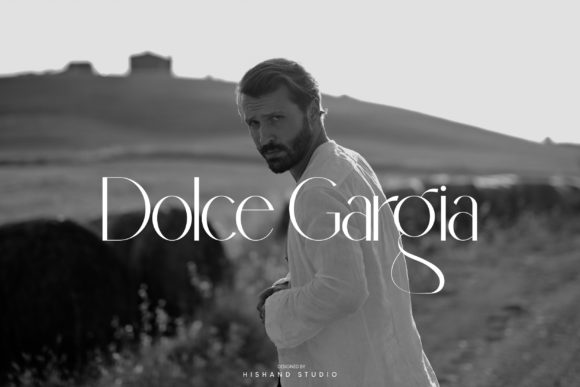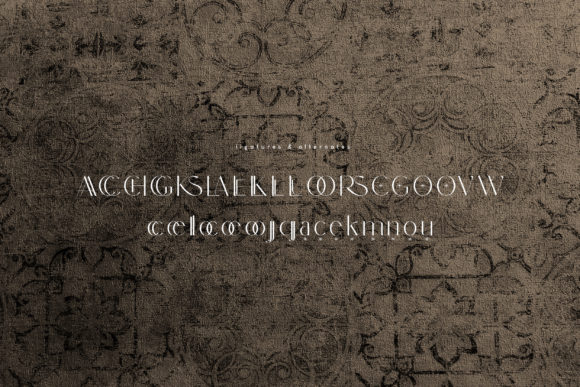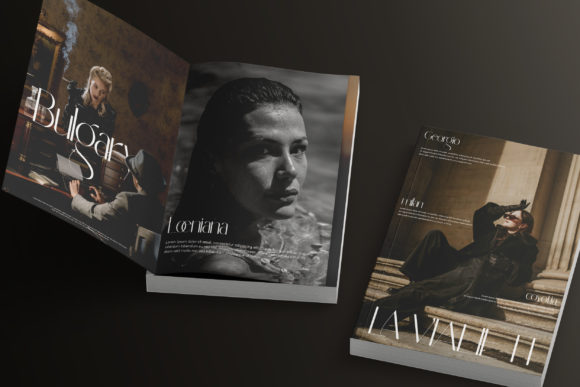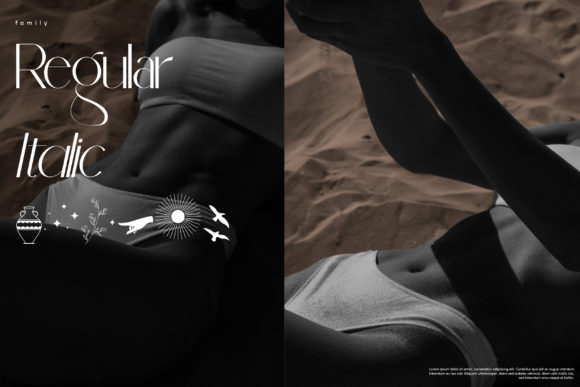
Dolce Gargia Font: Modern Aesthetic Sans Serif for Elegant Logo Design
About the Dolce Gargia Font
Meet Dolce Gargia Font, a stunning font that brings a touch of elegance and professionalism to any design. Dolce Gargia is a classic and modern sans serif font with an aesthetic look. This font is PUA encoded which means you can access all of the glyphs and swashes with ease!
Dolce Gargia’s clean lines and classic forms make it ideal for headlines, logos, and short-form text in branding materials and posters. Its aesthetic appeal also lends itself well to packaging design, particularly for high-end products. However, its less-than-optimal x-height makes it unsuitable for extended body text or UI elements where readability is paramount.
The font projects a sophisticated, modern feel. Its personality is elegant yet approachable, not overly bold or playful. To complement this, consider pairing Dolce Gargia with a contrasting serif like Garamond for a classic pairing, or a geometric sans-serif such as Futura for a more contemporary feel. A delicate script font could add a touch of luxury for specific applications.
Avoid pairing it with overly whimsical or heavily distressed fonts, as this would clash with its refined nature. Careful consideration of the overall design context is key to successfully utilizing this font’s unique qualities.
Dolce Gargia Font Usage Examples
Dolce Gargia Font Example